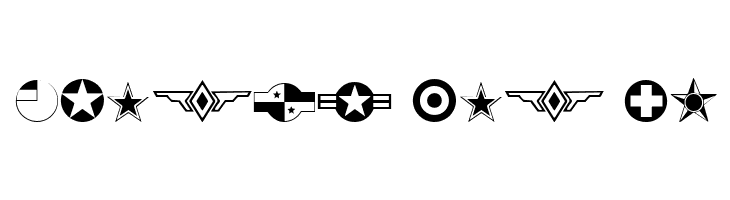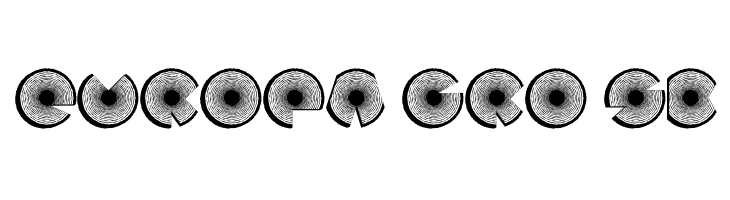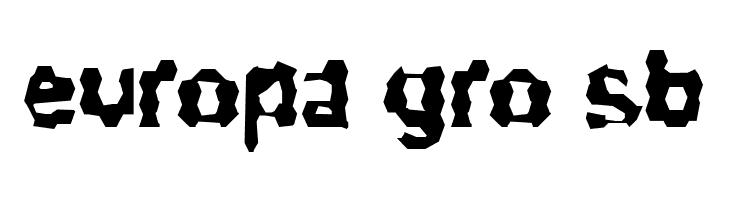
( Luc Mahler )
A modern, narrow font with angular and geometric design elements.
( Michael Cortez - www.facebook.com/schrotte )
A geometric, pixelated font with a modern, tech-inspired design.
( Out of Step Font Company - Dan Steinbok - outofstepfontco.com )
A geometric, angular font with a modern, urban aesthetic.
( Pisto Casero - Gilberto Moya Perona - www.pistocasero.com )
A geometric, minimalist font with a wireframe design and uniform line weight.
( Pizzadude - Jakob Fischer - www.pizzadude.dk/ )
A bold, stencil-style font with a rugged, distressed texture.
( Robin Campistron - www.rcgraphics.fr )
A modern, geometric sans-serif font with a clean and minimalist design.
( Skeddles - Sam Keddy - samkeddy.com/ )
( Thomas Mettendorf - www.schmalfett.de )
A rugged, distressed font with a primitive, hand-chiseled appearance.
( Treize grammes - 13g.fr/ )
A geometric, futuristic font with angular strokes and a modern aesthetic.
( TwoNineFive - Maximillian Limpo )
A bold, geometric font with a futuristic and mechanical design.
( Typodermic Fonts - Ray Larabie - www.typodermicfonts.com/ )
A geometric, angular font with a modern and technical style.
( Typodermic Fonts - Ray Larabie - www.typodermicfonts.com/ )
A modern, geometric sans-serif font with uniform character width and clear readability.
( Xato - Santiago Amaya - www.behance.net/xato )
A bold, angular font with a geometric and tribal aesthetic.
( Xerographer Fonts - Max Infeld - xerographer.blogspot.com )
A bold, geometric font with a modern and striking design.
( Xerographer Fonts - Max Infeld - xerographer.blogspot.com )
A bold, geometric font with a modern and angular design.
( Zetafonts - www.zetafonts.com )
A modern serif font with balanced structure and elegant readability.
( elharrak - elharrak fonts - el-harrak.blogspot.com/ )
Bold, geometric display font with high contrast and decorative elements.
( gluk - Grzegorz l - www.glukfonts.pl )
A thin, decorative font with elegant curls and artistic flair.
A diverse set of bold, geometric, and illustrative logo glyphs.
( memesbruh03 - Aaron D. Chand )
A pixelated, blocky font with a retro digital style.
A modern, hollow, inverse font with geometric shapes and sharp angles.
A bold, rounded font with a futuristic and geometric style.
A geometric, angular font with a futuristic and tech-inspired style.
( Anigma New Media - www.anigma.fsnet.co.uk/an/anigma-fonts.html )
A bold, decorative font with intricate, interconnected letterforms.
( BitmapMania - bitmapmania.m78.com/ )
A geometric, condensed font with a retro digital aesthetic.
( Brian McFeely )
A pixelated, retro-style font with a blocky, geometric design.
( Charles Casimiro Design - home.earthlink.net/~casimiro/ )
A bold, geometric font with an industrial and modern design.
( CraftThings - www.craftthings.com )
A tall, narrow font with consistent stroke width and a modern, minimalistic style.
( Digital Agent Factory - web.archive.org/web/20030621173551/daf.to/font.html )
( Endie )
A decorative and futuristic font with geometric patterns and ornamental details.
( George Williams - web.archive.org/web/20051223080638/bibliofile.mc.duke.edu/gww/fonts/fonts.html )
A decorative and avant-garde font with geometric shapes and fragmented lines.
( London's Letters - www.londonsletters.com/ )
A bold, decorative font with integrated armadillo motifs for a playful touch.
( MichaelKoebnick )
A futuristic, geometric font with a digital and sci-fi aesthetic.
( Nouman )
A bold, angular font with sharp, geometric shapes and high contrast.